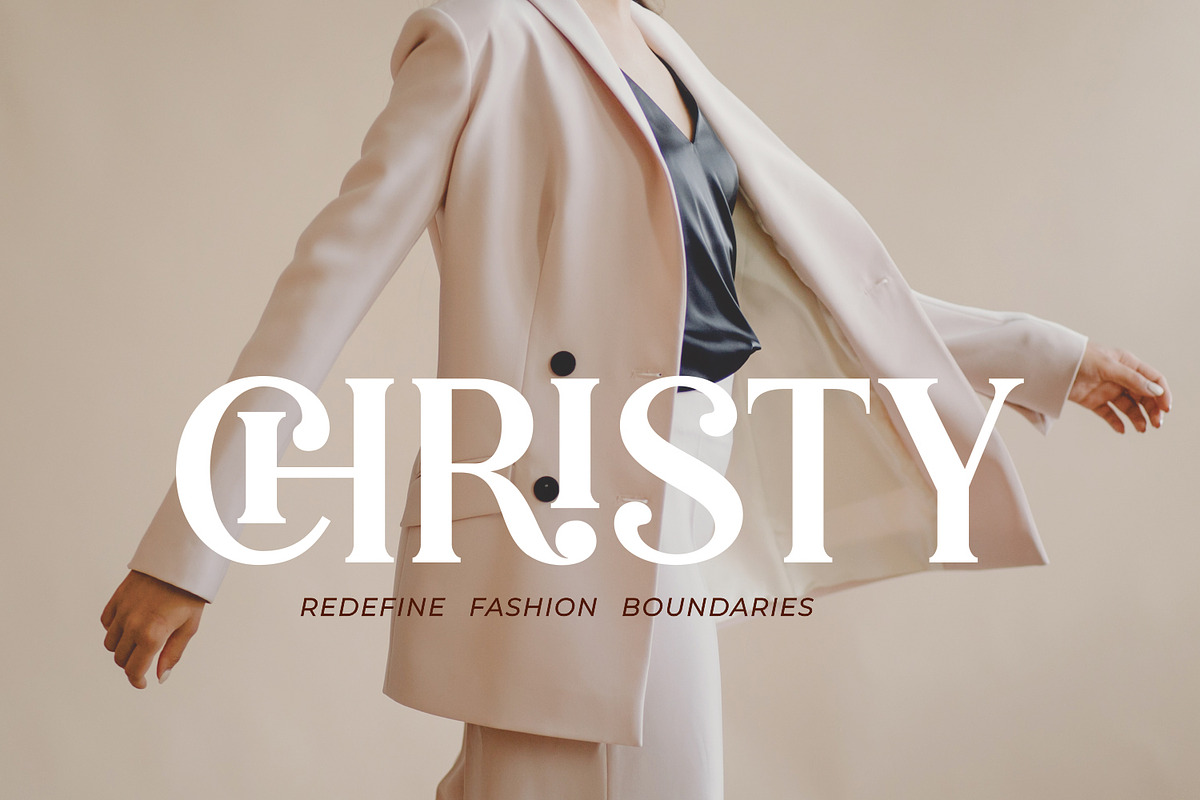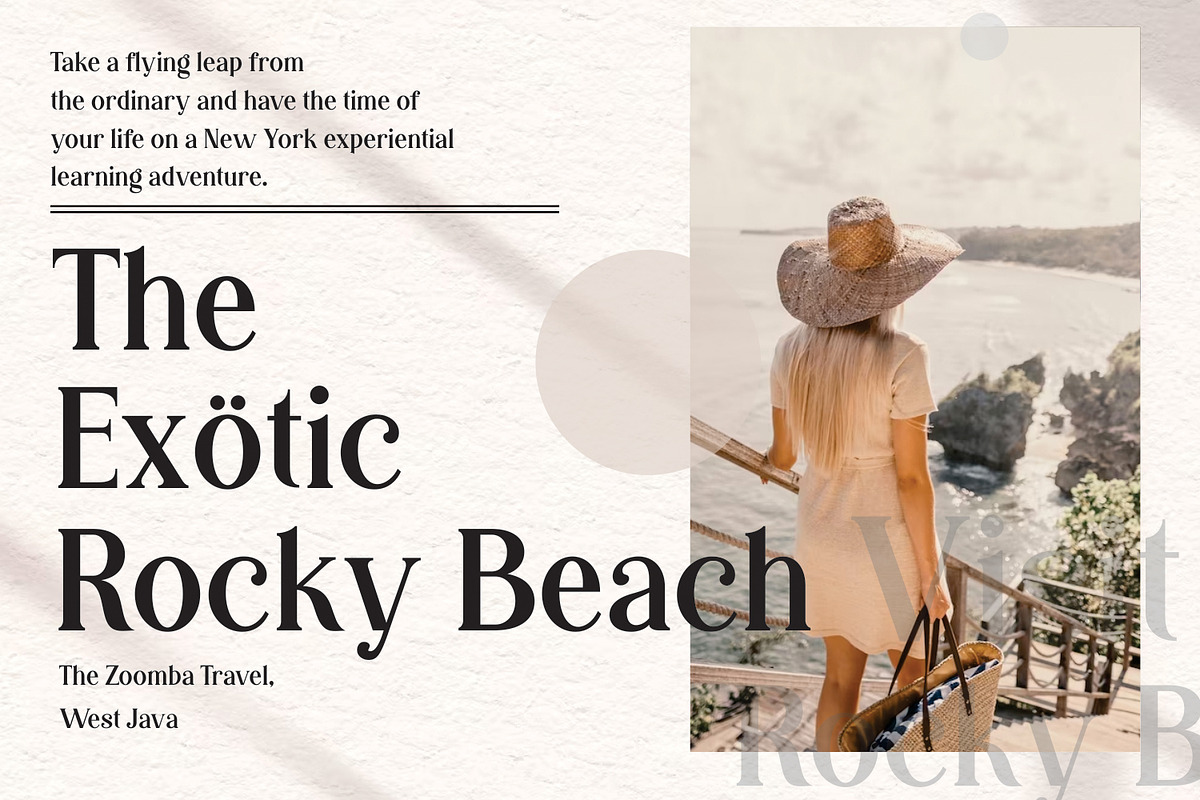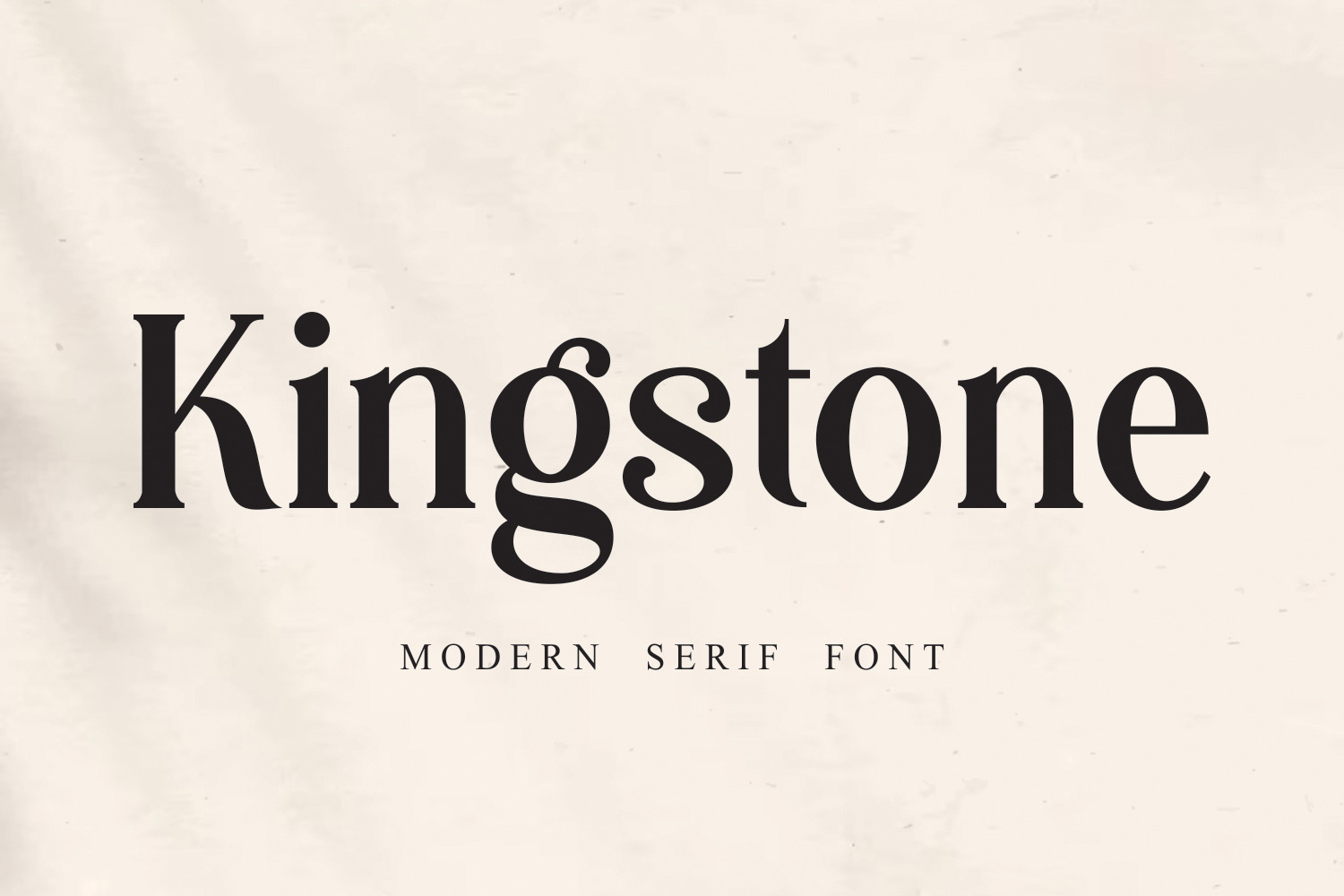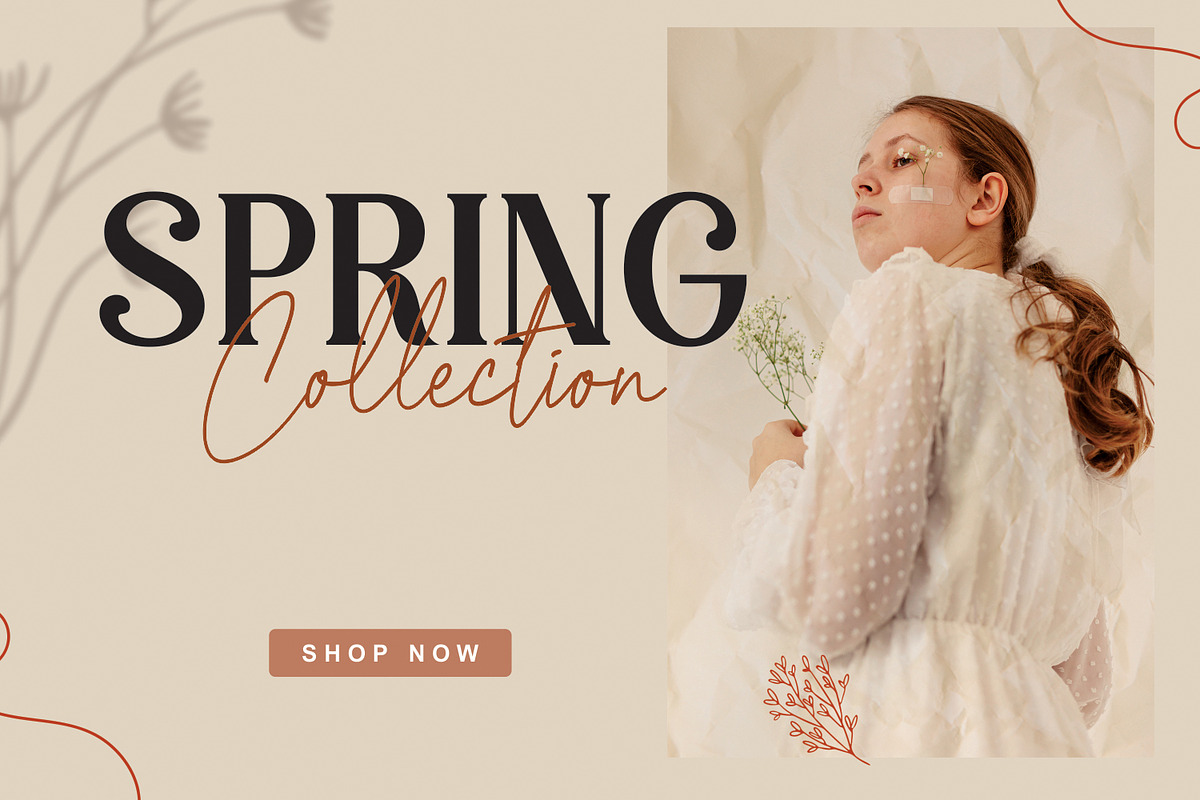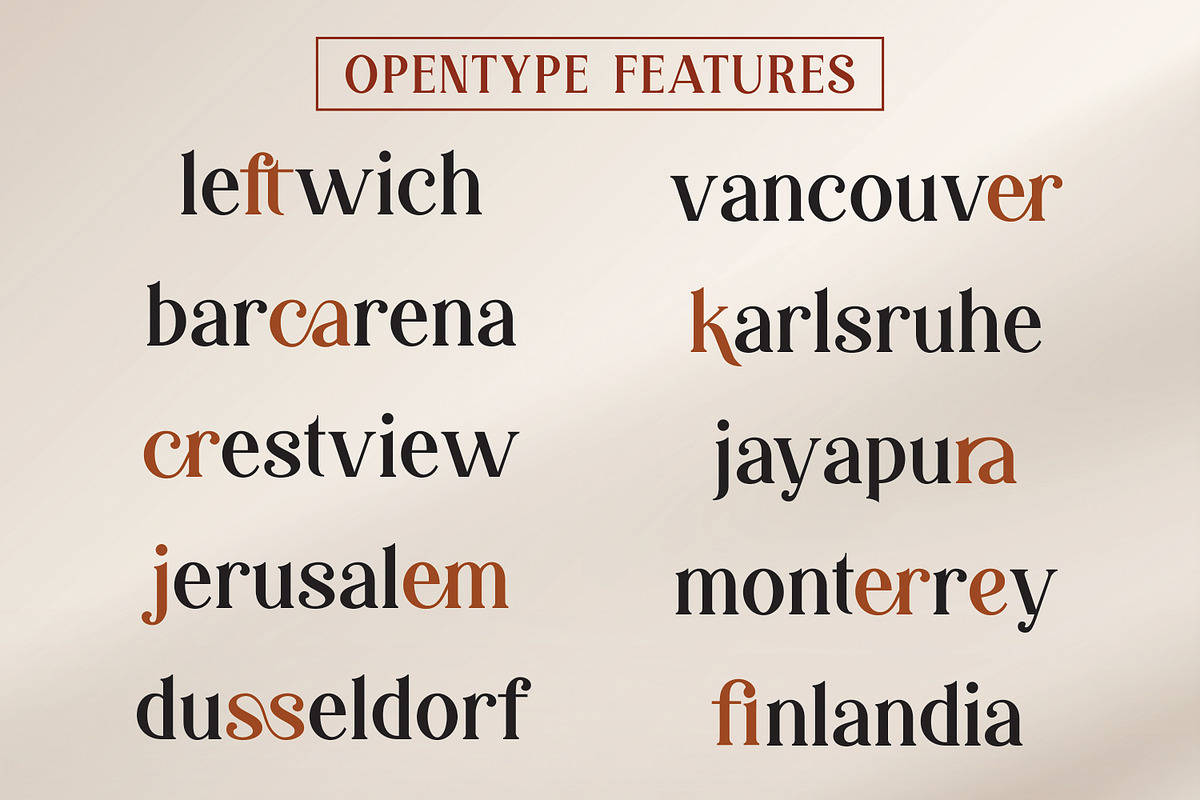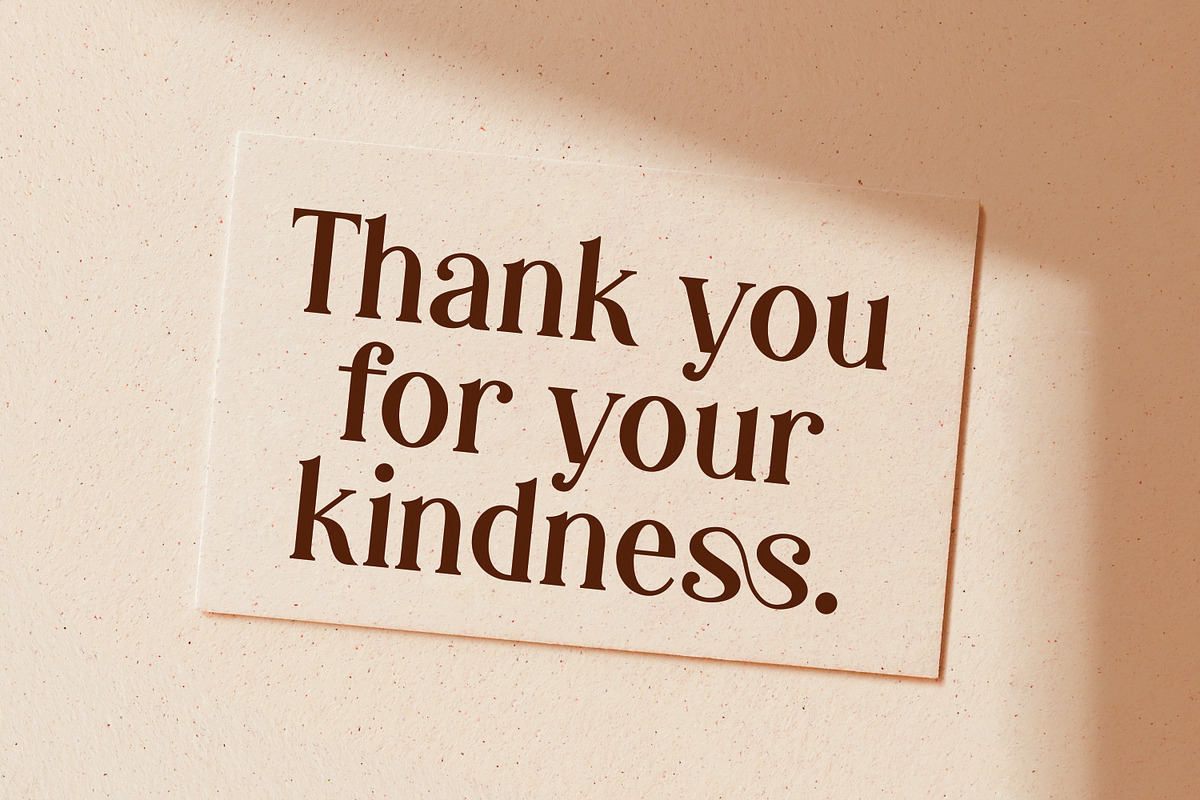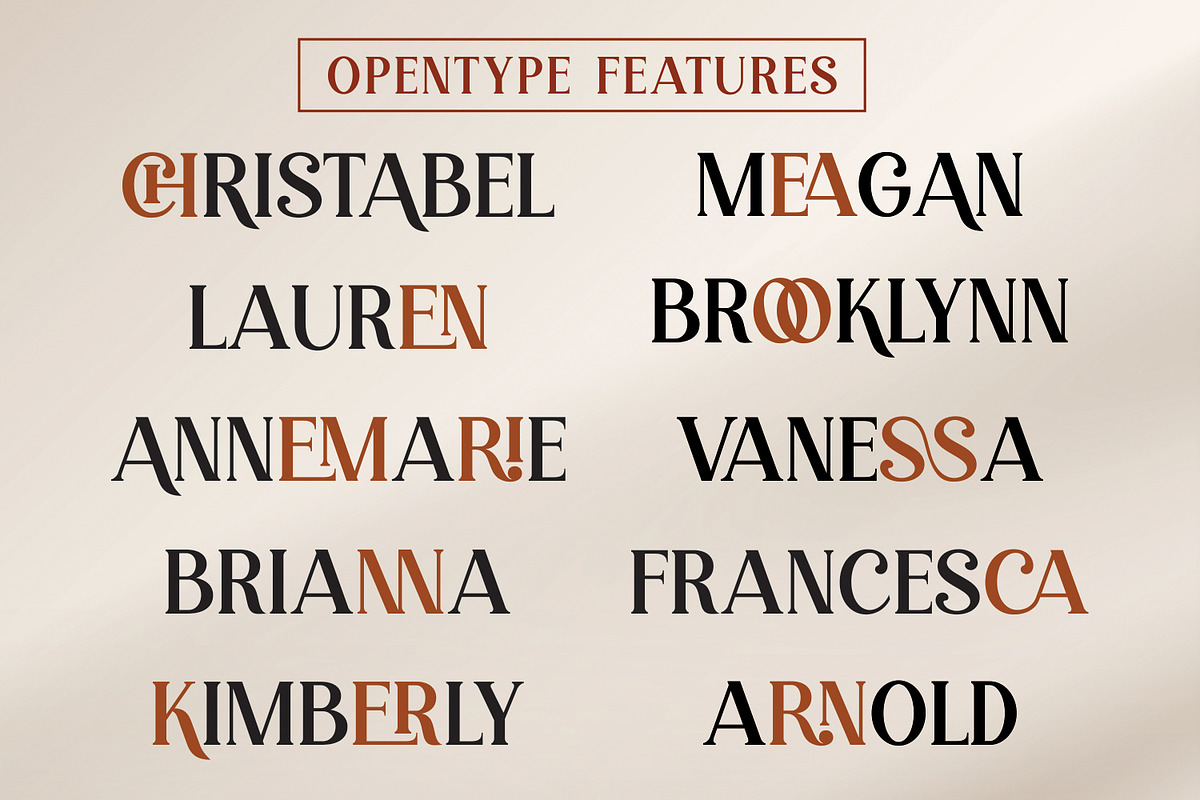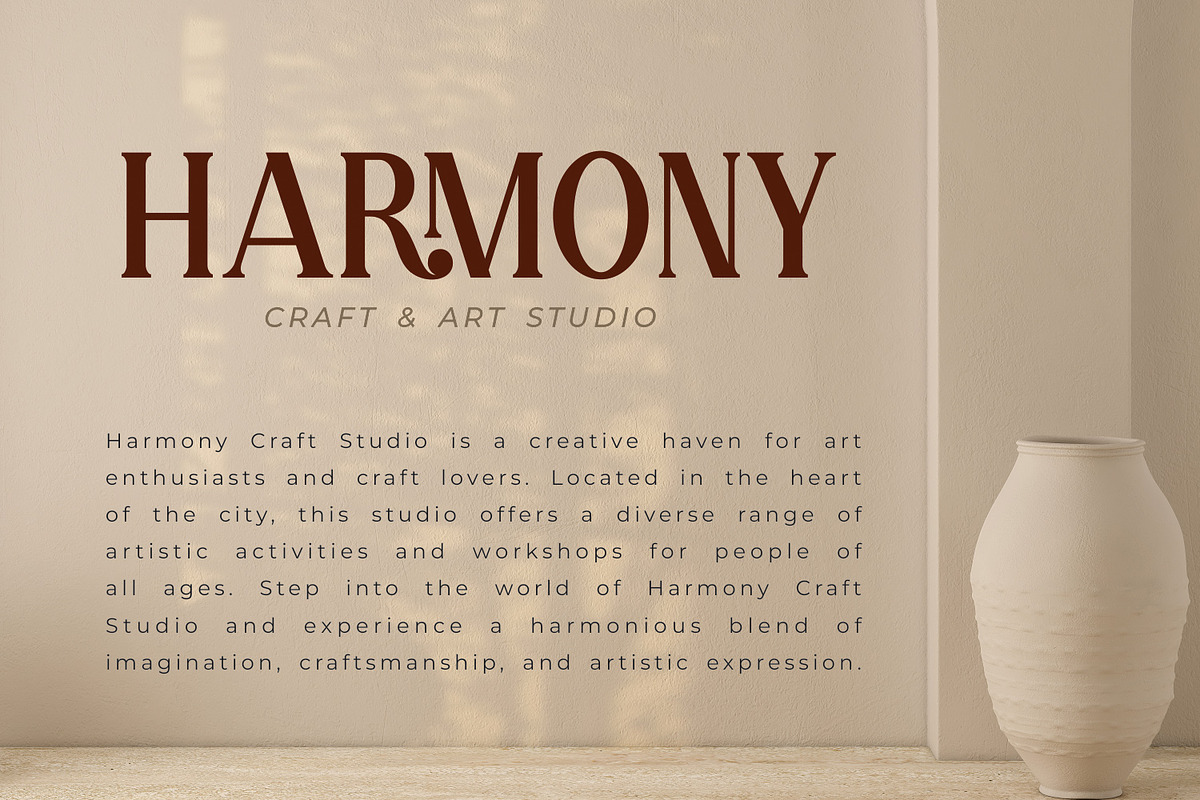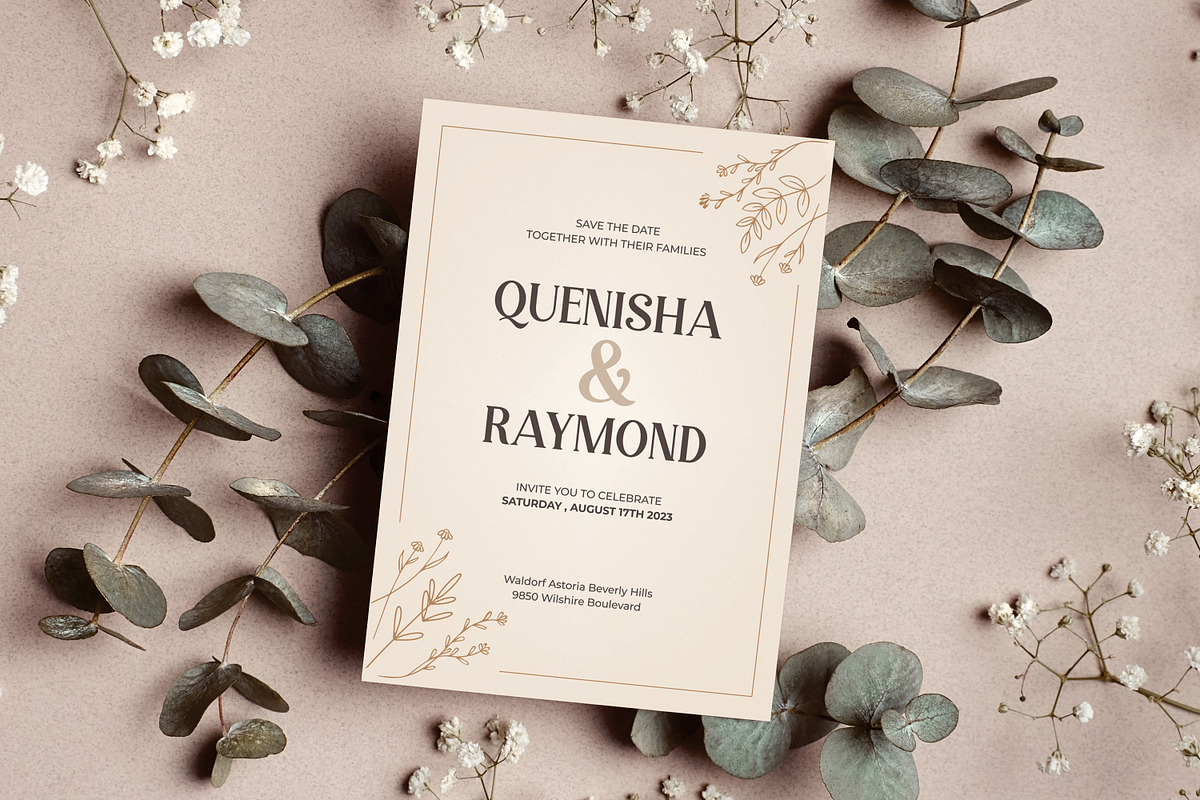
Kingstone - Serif Font
Introducing the majestic "Kingstone Serif Fonts," a typeface that exudes power, elegance, and timeless appeal. With its commanding presence and exquisite details, this font is designed to make a bold statement in your designs.
Let the "Kingstone Serif Fonts" reign over your projects and elevate them to new heights of sophistication. Its sturdy serifs and balanced letterforms exude a sense of authority, making it ideal for prestigious branding, editorial designs, and luxury packaging. Each character is meticulously crafted to convey a sense of grandeur and refinement.
Impress your audience and captivate their attention with the regal allure of "Kingstone Serif Fonts." Whether you're designing logos, headlines, or promotional materials, this font will command attention and leave a lasting impression.
Experience the power and grace of "Kingstone Serif Fonts" today. Elevate your designs to royalty and seize the attention of your audience. Don't miss out on this opportunity to add a touch of grandeur to your work.